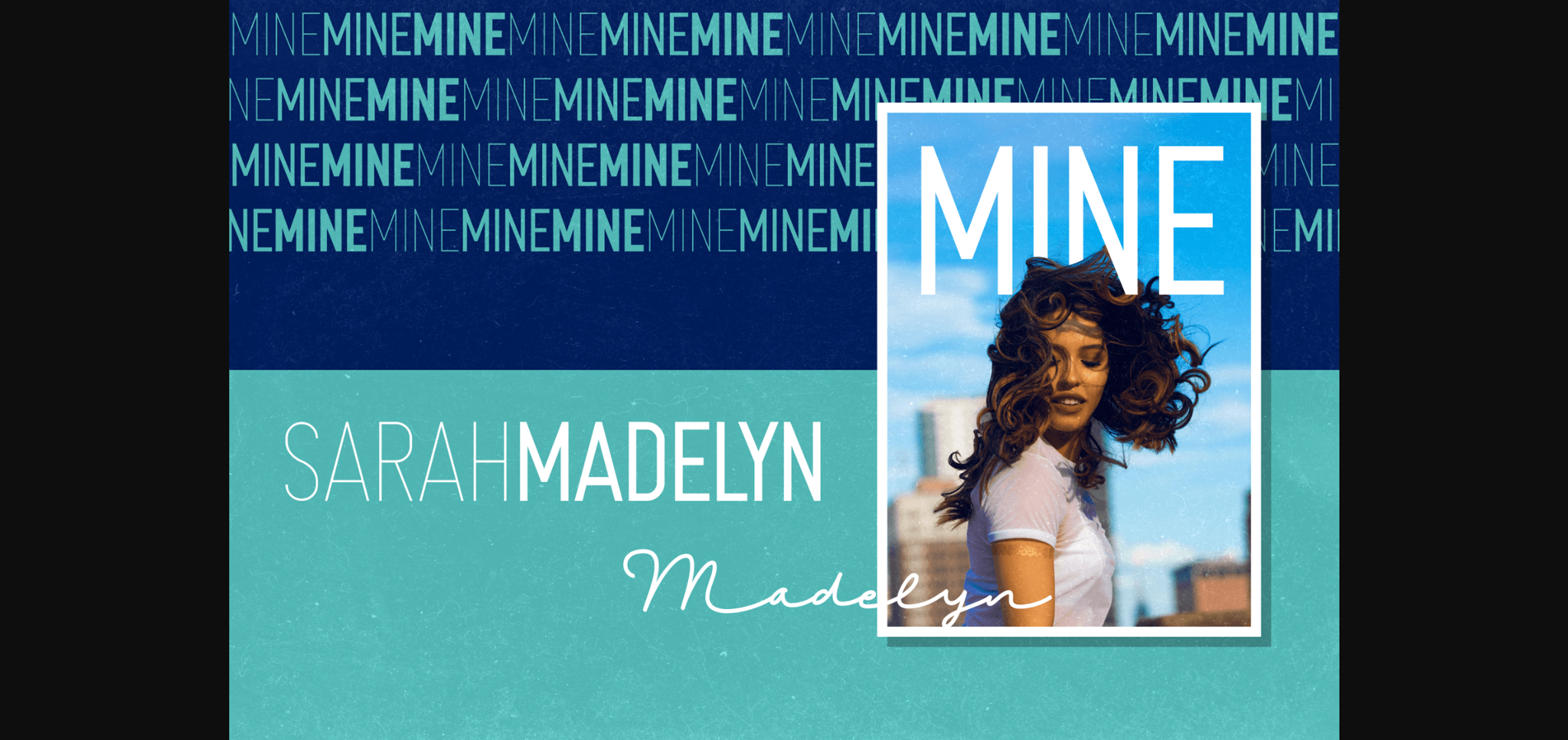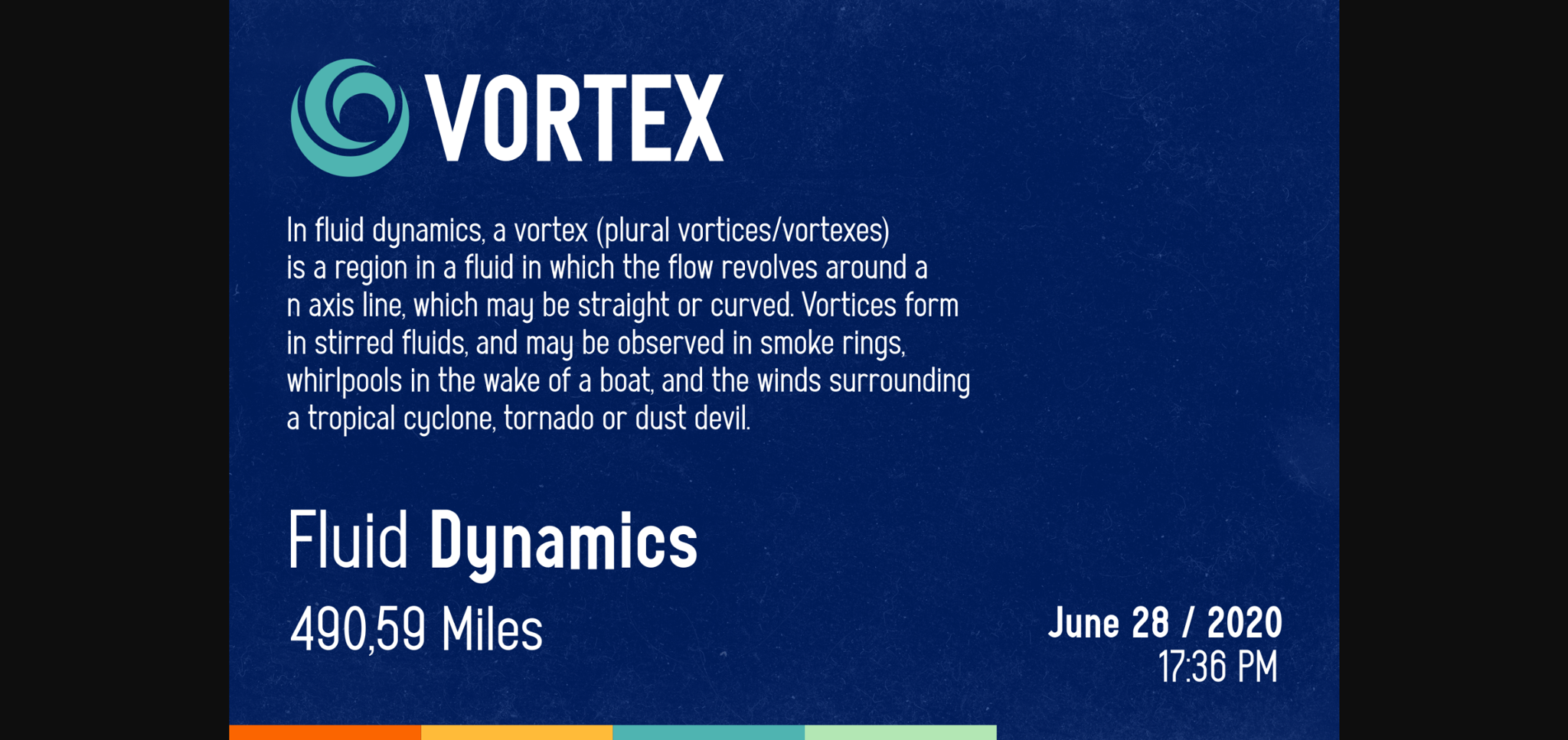
About Theridge Font
Theridge is a multipurpose condensed font that’s clean, neat, and attractive. Inspired by hiking trips and forest views, Theridge represents a sense of clean highland adventure. These fonts are themed retro, adventure, urban, hipster, and vintage but still modern. These fonts are great for creating desired projects like logos, posters, headlines, albums, quotes, apparel, and more. Theridge is perfect for anyone who needs a clean condensed typeface!